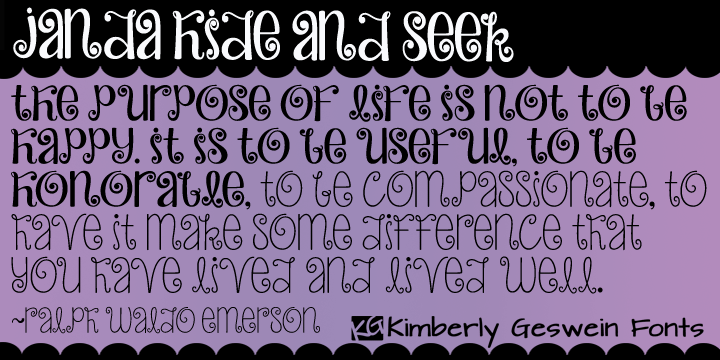
• Janda Hide And Seek
This fun, swirly unicase font features two styles- a thicker uppercase and a thin lowercase. Use them separately or mix-and-match for the look you want.